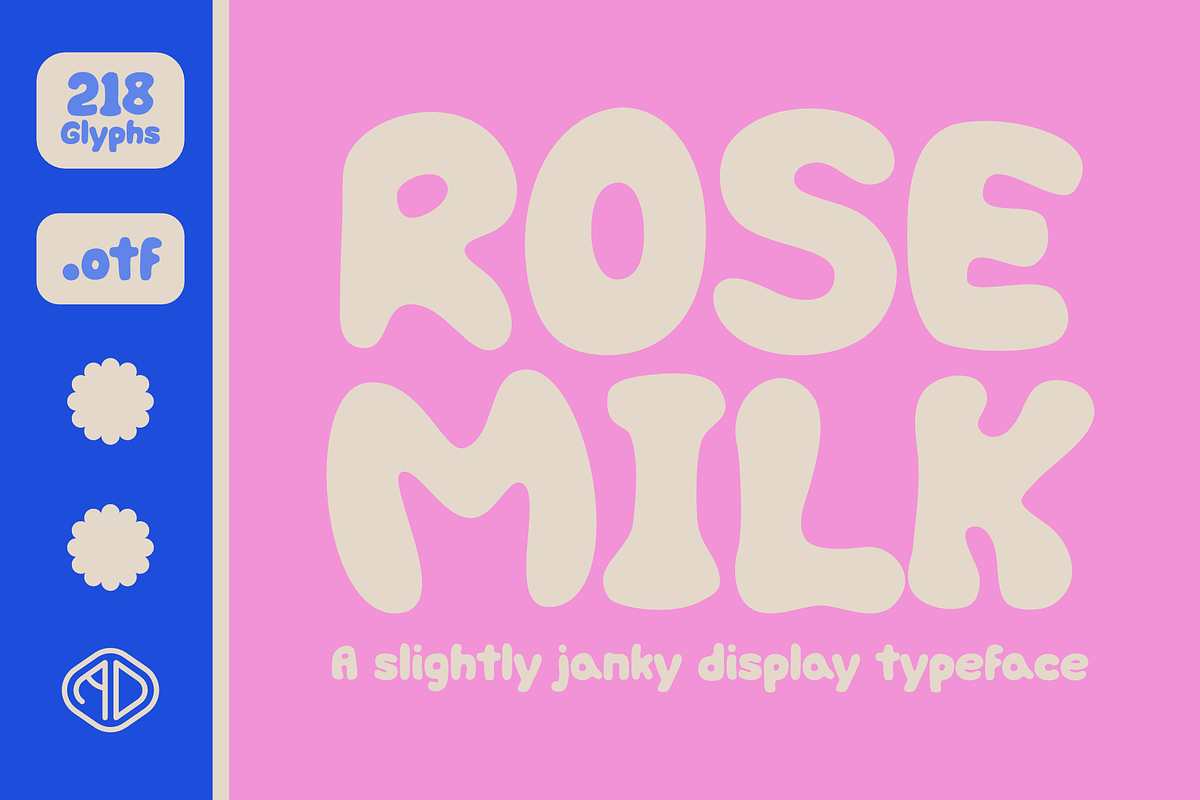
Rose Milk - A janky new display font Free Download
Rose Milk - A Janky New Display Font Free Download is a playful and quirky typeface designed to add personality and charm to any creative project. With its hand-drawn, imperfect edges and fun, janky style, this font brings a unique flair that is perfect for posters, headlines, logos, product packaging, and social media content.
The bold, unconventional design of Rose Milk makes it an ideal choice for those looking to create designs that stand out and evoke a sense of fun and creativity. Whether you're working on a music festival flyer, a children's brand, or a modern art poster, this font captures attention and adds character to your visuals.